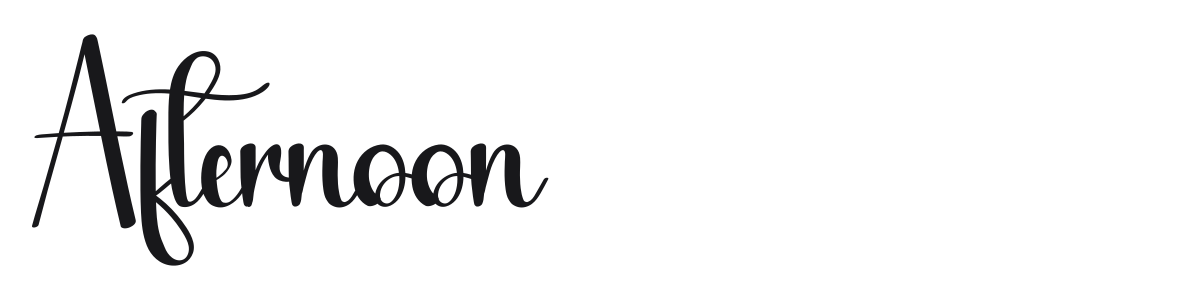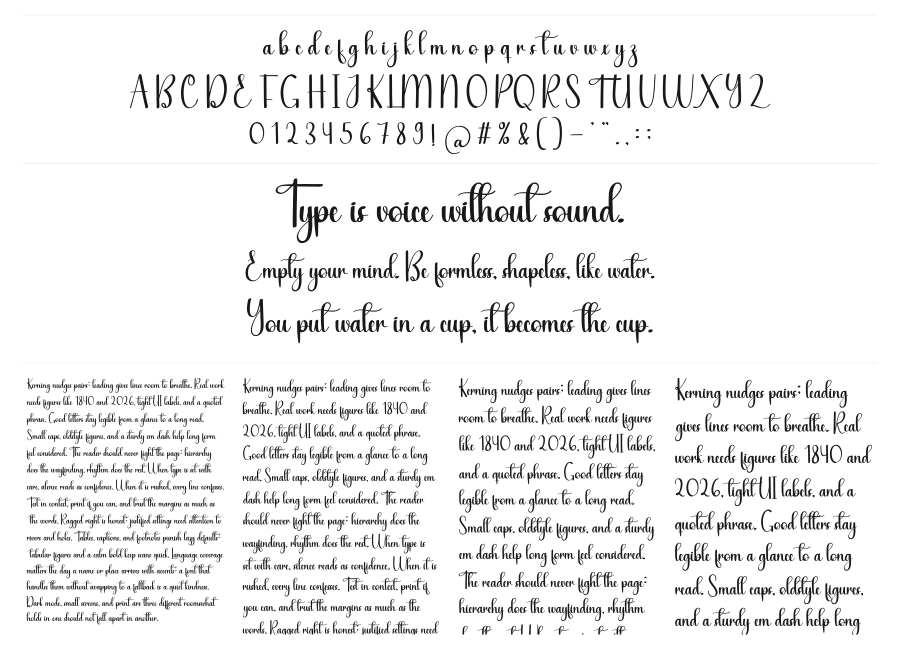
Afternoon
Afternoon is a flowing casual script with high stroke contrast and lively bouncing rhythm. The looping ascenders and swashing descenders give it a handcrafted warmth that feels at home on wedding invitations, greeting cards, and lifestyle branding. It carries enough calligraphic polish to feel refined without losing its playful energy.